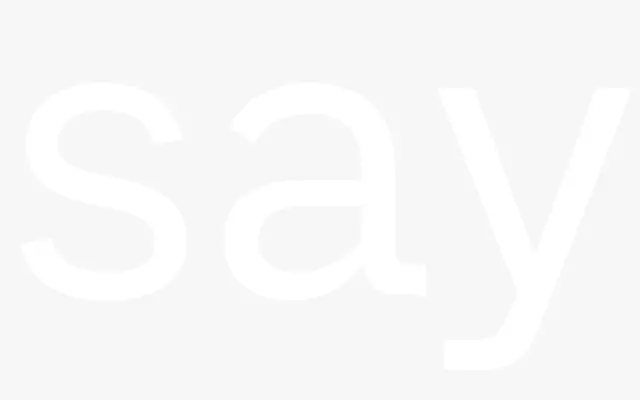
CA Saygon Text
Cape Arcona · Stefan Claudius
A text-optimised grotesque with seven weights and five stylistic alternate sets that let users switch between single- and double-storey letterforms inspired by Helvetica, Futura and Franklin Gothic.
Developed as a less eccentric companion to CA Saygon, this family retains the parent's proportions while adopting a higher x-height, reduced ascenders, a low cap height and right-angled terminals on f and t. Five named stylistic sets — Helvetica, Futura, Franklin, Cape and Flat — offer distinct combinations of a, g and y forms, making the typeface unusually adaptable for a single grotesque family. Latin Extended and Cyrillic coverage reaches as far as Vietnamese, and spacing was finished by Igino Marini using iKern.
Inspired by early static grotesques such as Akzidenz Grotesk, CA Saygon Text is a text-oriented grotesque sans with a high x-height, right-angled terminals, and multiple stylistic alternates referencing Helvetica, Futura, Franklin Gothic and bespoke forms.